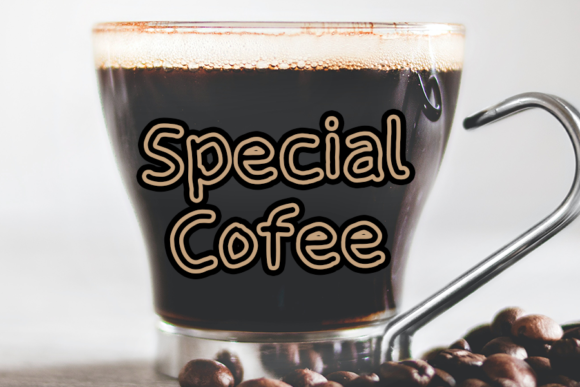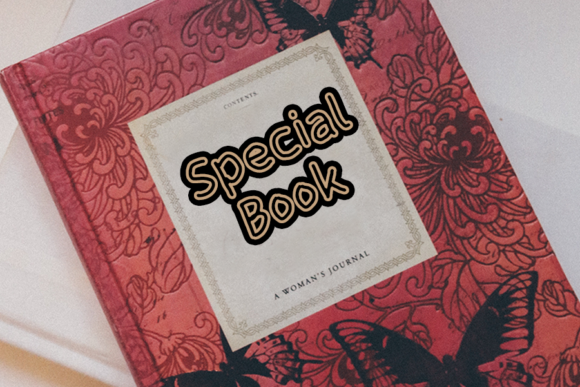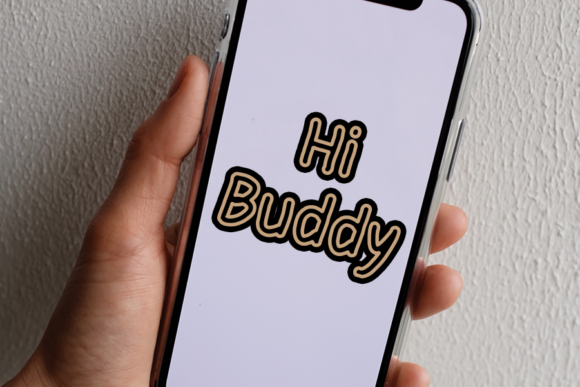
Introducing Christmas Bride Font: The Perfect Addition to Your Holiday Designs
Are you looking for a font that will make your holiday designs stand out? Look no further than Christmas Bride Font, a neat and simple display font that is perfect for adding a touch of festive flair to your projects. In this article, we’ll take a closer look at Christmas Bride Font and explore how it can be used to elevate your designs.
What is Christmas Bride Font?
Christmas Bride Font is a beautifully designed display font that is perfect for use in a variety of holiday-themed projects. Its clean and simple lines make it easy to read and versatile enough to be used in a wide range of applications, from holiday cards and invitations to website headers and social media graphics.
Key Features of Christmas Bride Font
- Neat and Simple Design: Christmas Bride Font features a clean and simple design that makes it easy to read and use in a variety of projects.
- Highly Versatile: This font can be used in a wide range of projects, from holiday cards and invitations to website headers and social media graphics.
- Large Character Set: Christmas Bride Font comes with an incredibly large set of characters, making it easy to use in a variety of languages and projects.
How to Use Christmas Bride Font in Your Designs
Christmas Bride Font is incredibly easy to use and can be incorporated into your designs in just a few simple steps. Here are a few ideas to get you started:
- Holiday Cards and Invitations: Use Christmas Bride Font to add a touch of festive flair to your holiday cards and invitations.
- Website Headers and Graphics: Add Christmas Bride Font to your website headers and graphics to create a festive and welcoming atmosphere.
- Social Media Graphics: Use Christmas Bride Font to create eye-catching social media graphics that will help your posts stand out.
- Crafting and DIY Projects: Christmas Bride Font is also perfect for use in crafting and DIY projects, such as making holiday decorations, gift tags, and more.
Why Choose Christmas Bride Font?
So why choose Christmas Bride Font for your holiday designs? Here are just a few reasons:
- Unique and Festive Design: Christmas Bride Font features a unique and festive design that will add a touch of holiday cheer to your projects.
- Easily Readable: The clean and simple lines of Christmas Bride Font make it easy to read, even at small sizes.
- Highly Versatile: This font can be used in a wide range of projects, making it a great addition to your font library.
Tips for Using Christmas Bride Font
Here are a few tips for using Christmas Bride Font in your designs:
- Experiment with Different Sizes and Colors: Don’t be afraid to experiment with different sizes and colors of Christmas Bride Font to find the perfect look for your project.
- Pair with Other Fonts: Christmas Bride Font pairs well with a variety of other fonts, so don’t be afraid to get creative and try out different combinations.
- Use in Combination with Images: Christmas Bride Font looks great when used in combination with images, so consider adding it to your holiday graphics and social media posts.
Christmas Bride Font is a beautiful and versatile display font that is perfect for adding a touch of festive flair to your holiday designs. With its clean and simple lines, highly versatile design, and large character set, it’s the perfect addition to your font library. Whether you’re a designer, crafter, or DIY enthusiast, Christmas Bride Font is sure to become a favorite.